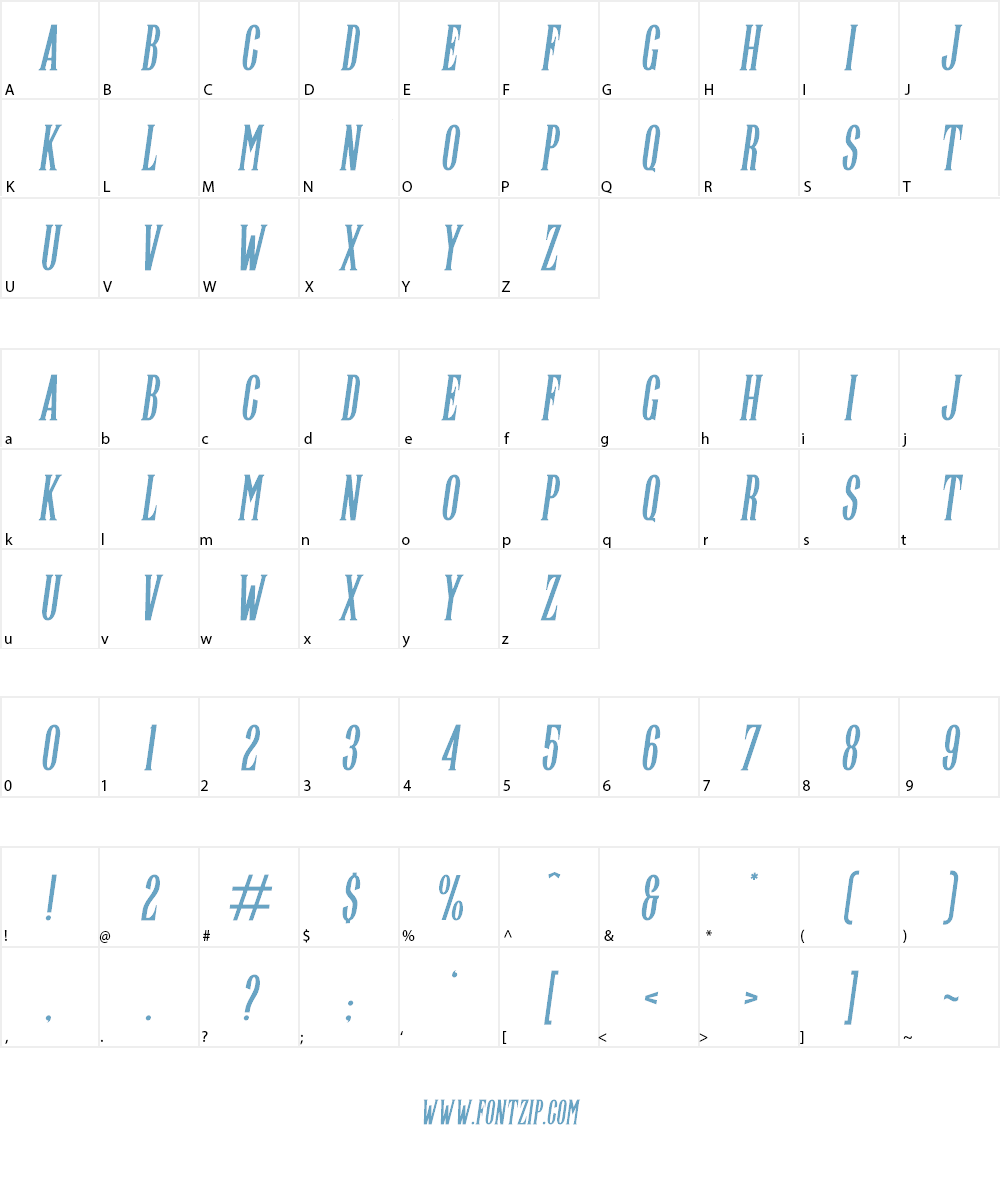
Highwind is a condensed all-caps serif that are borrowed the shape and style from the famous Final Fantasy logo.I made this font as a homage to the one of the best RPG franchises that i ever played. Enjoy Highwind and take the skies!